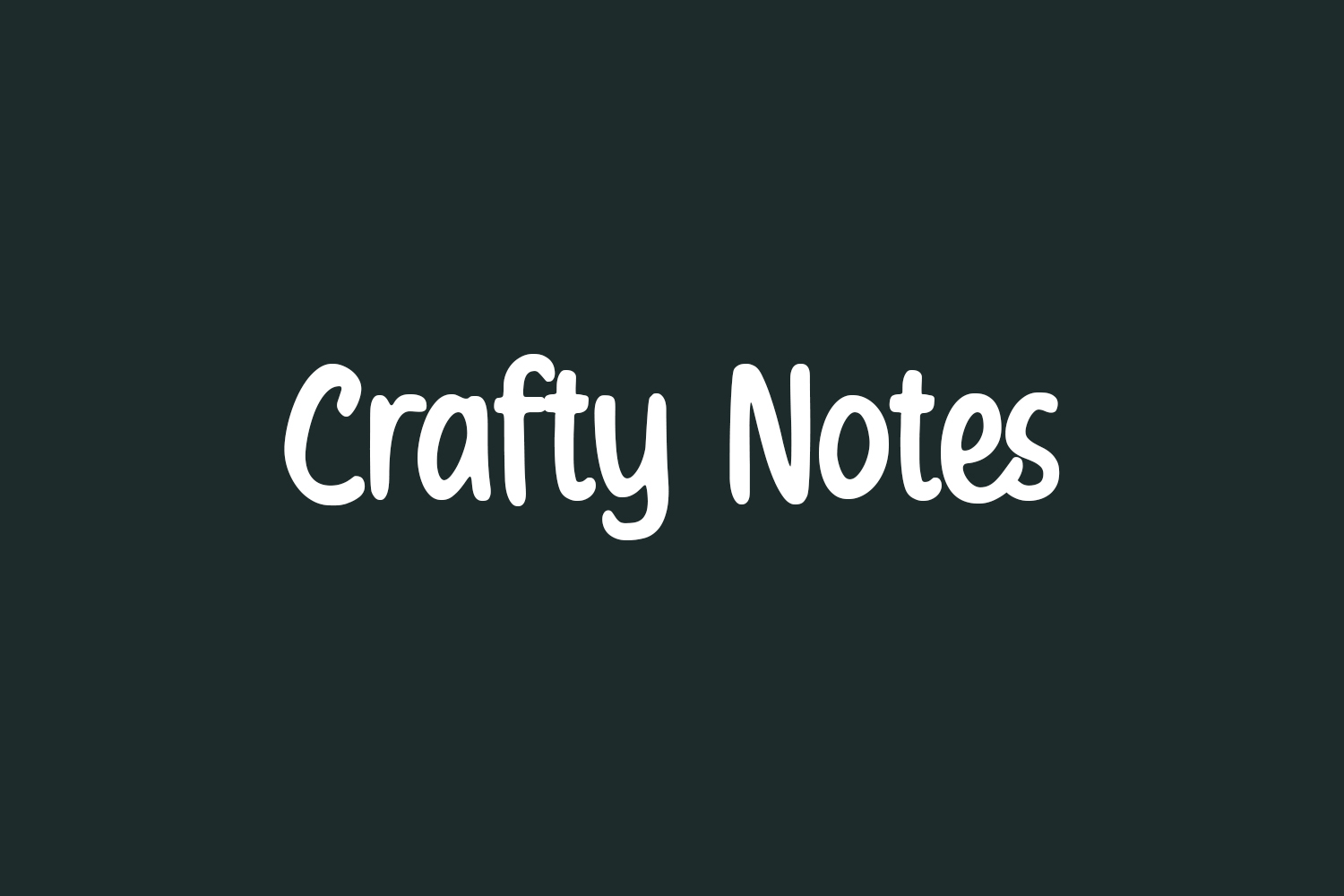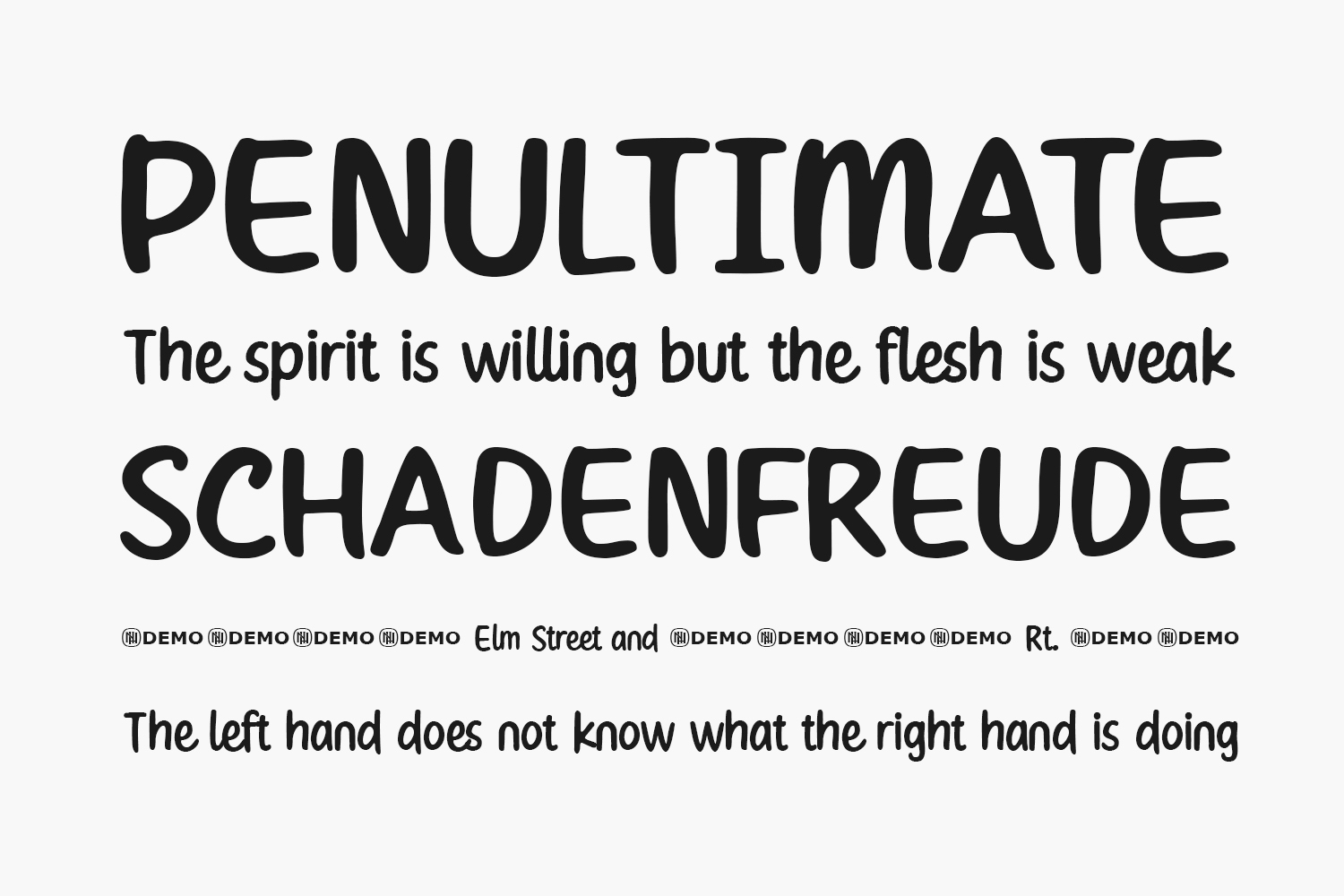
Crafty Notes Free Font is a cute and simple lettered handwritten font. Whether you use it for cartoon related designs, children’s games, or just any creation that requires a lovely touch, this font will be an amazing choice. Crafty Notes Free Font was designed by Niskala Huruf is a demo and free for personal use only. Please purchase the full version for commercial use.